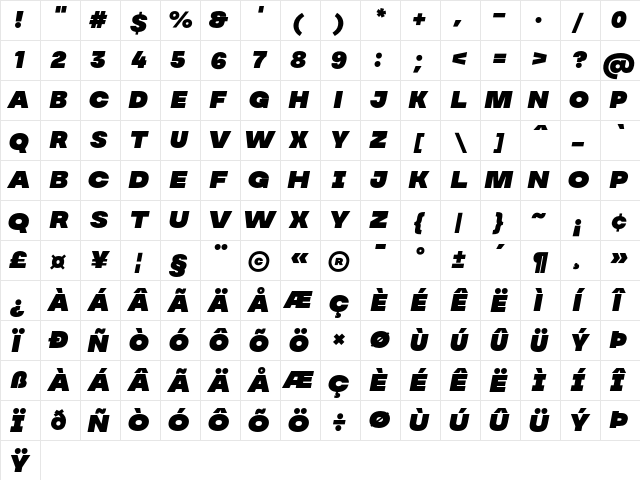
MADE Soulmaze Italic
Foundry MadeType
DesignerMadeType
Design Context for MADE Soulmaze Typeface
MADE Soulmaze takes a measured approach to typography — its balanced proportions and neutral character make it a reliable workhorse for both digital and print work. The dynamic lean of this cut emphasises speed and emphasis in any layout.